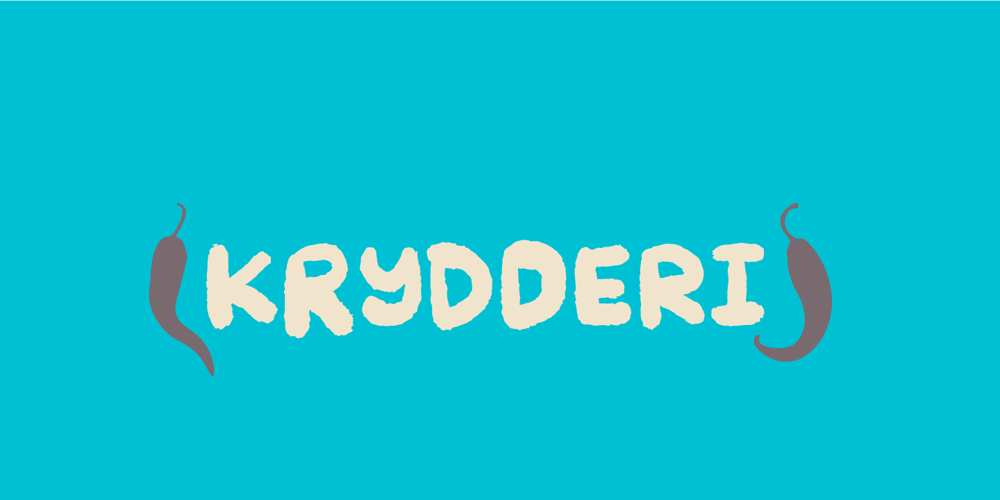
Krydderi
Krydderi font
Krydderi Font Family was designed by Jakob Fischer and published by PizzaDude.dk. Krydderi contains 2 styles and family package options. A touch of spice is often what makes a good meal even better. In Danish, spice is called “krydderi” I chose that particular name for this font because it is the kind of brush font that most likely could spice up your next design. I’ve added 6 different versions of each letter, and they automatically cycle as you type, leaving the result like authentic brush written text.All Caps Fonts.